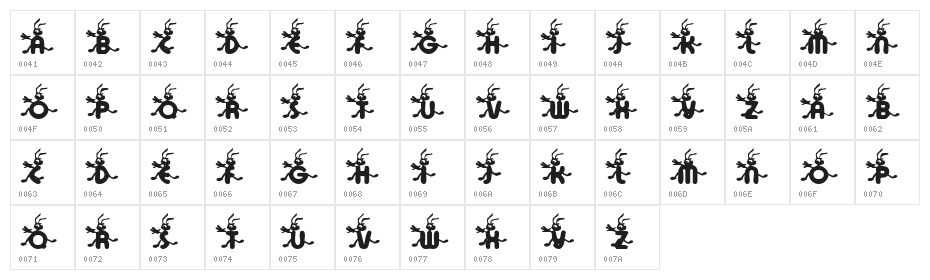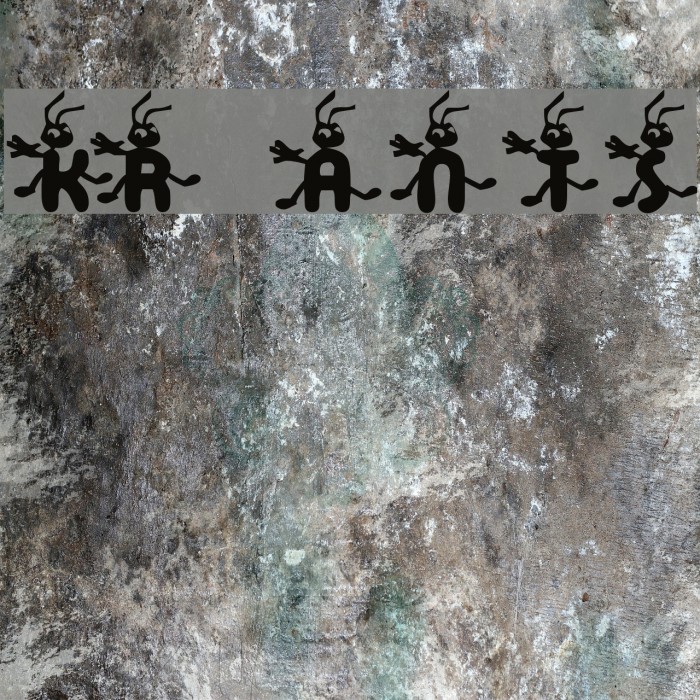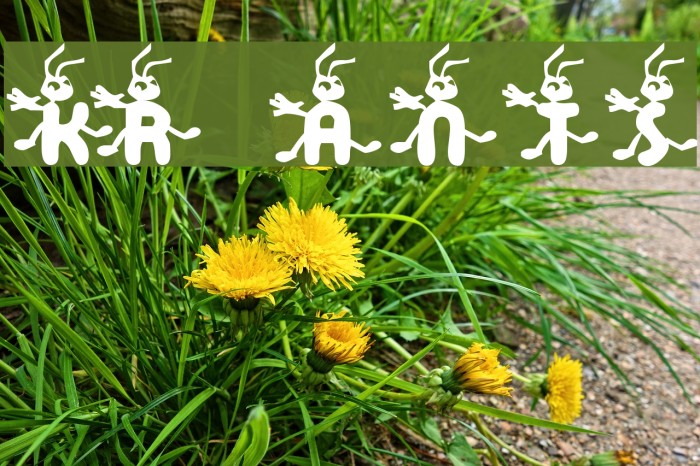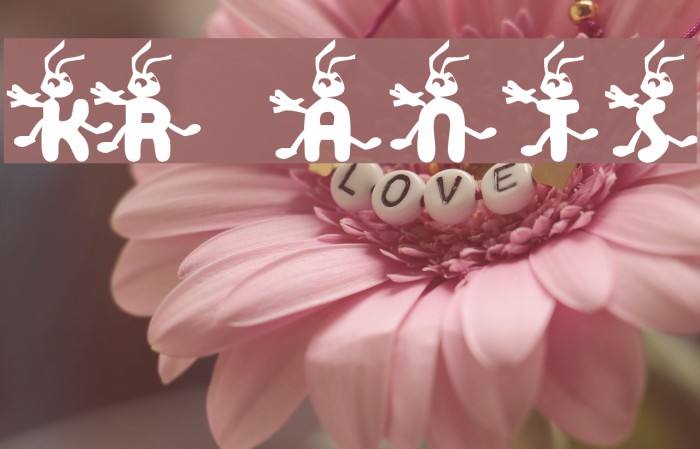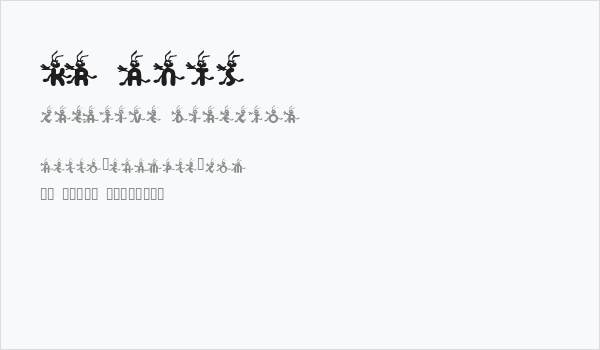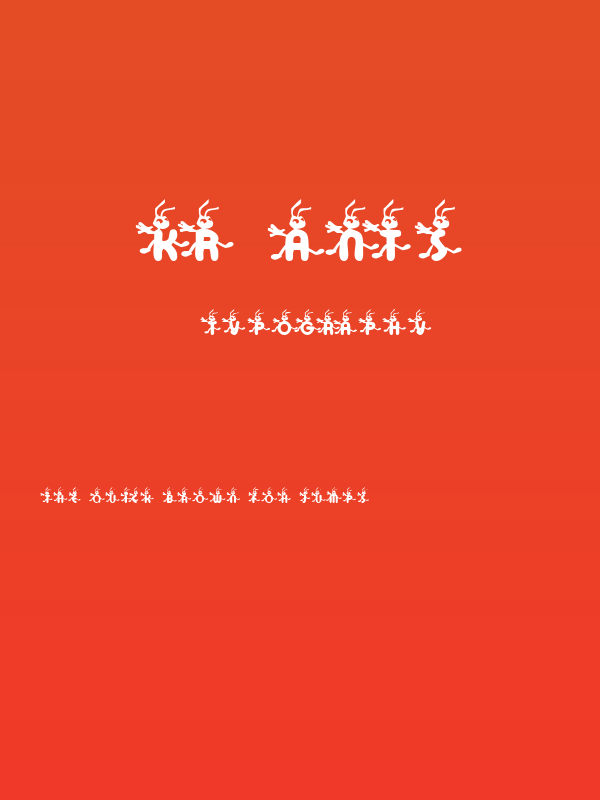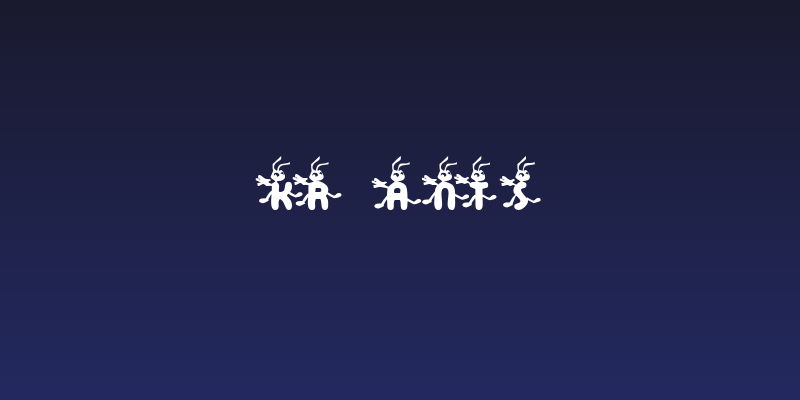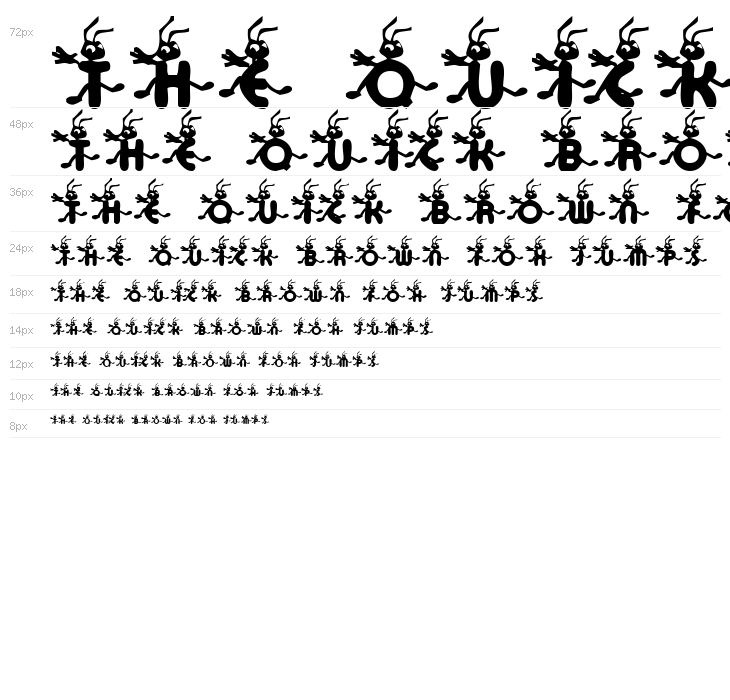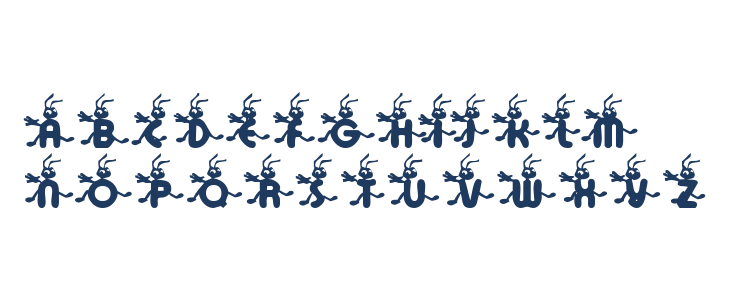
KR Ants Font
KR Ants Description
This playful and whimsical font features characters that are creatively integrated with cartoonish ant figures. Each letter is designed with an ant's body forming part of the character, giving it a unique and lively appearance. The font is bold and has a decorative style, making it ideal for projects that require a fun and engaging look. The characters are evenly spaced, and the overall design is consistent throughout the alphabet. This font is perfect for children's books, playful branding, or any project that aims to capture a sense of fun and imagination.
| Overall Style | Whimsical, Playful |
| Proposed Projects | Children's books, playful branding, party invitations, educational materials. |